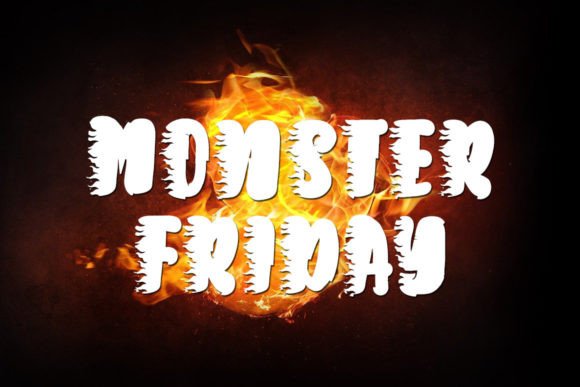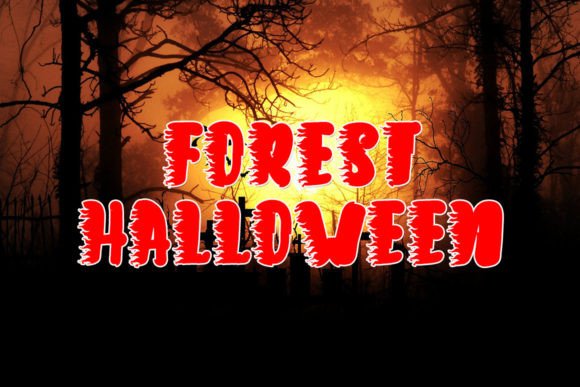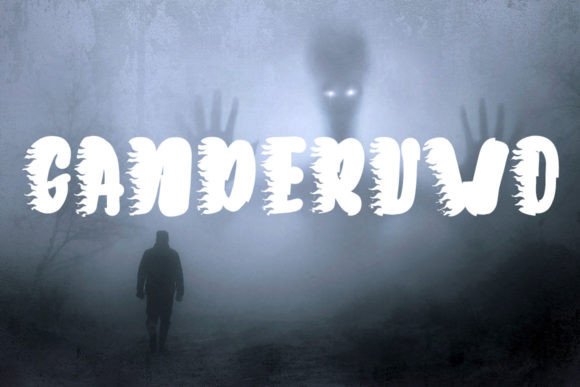
The Ultimate Display Font: Unleashing the Power of Fire Speed
I’ll never forget the moment I stumbled upon the perfect font for a client’s branding project. It was as if the stars aligned, and my design woes disappeared into thin air. That’s exactly what happened when I discovered the Fire Speed font. In this article, I’ll share my journey with this incredible display font, its features, and how to make the most of it in your designs.
A Design Moment of Frustration and Triumph
I was working on a project for a trendy boutique hotel, and the client requested a bold, eye-catching font to capture the essence of their brand. I scoured the internet, tried countless fonts, but nothing seemed quite right. That was until I stumbled upon Fire Speed. Its unique design and versatility immediately caught my attention. I knew I had found the perfect fit.
An Honest Review of Fire Speed
Here’s what I love about Fire Speed:
- ✨ Unique and bold design that grabs attention
- ✅ Highly versatile and adaptable to various design projects
- 🔥 Excellent for headlines, titles, and display text
- 👍 Well-suited for branding, advertising, and marketing materials
While Fire Speed is an exceptional font, there are a few minor quirks to consider:
- 🤔 May not be suitable for body text or small font sizes due to its bold nature
- ⚠️ Some characters may not work well in certain contexts, such as in combination with other bold fonts
The Backstory of Fire Speed
Fire Speed was designed by a renowned typographer who aimed to create a font that would evoke speed, energy, and dynamism. The designer’s inspiration came from the world of sports, technology, and high-performance vehicles. The result is a font that exudes confidence, power, and style.
| Font Name | Fire Speed Font |
| Author | Mr.Soon Design |
| What is Fire Speed best used for? | Fire Speed is ideal for headlines, titles, and display text in branding, advertising, and marketing materials. |
| Is Fire Speed suitable for body text? | No, Fire Speed is a bold font and may not be suitable for body text or small font sizes. |
| Does Fire Speed support OpenType features? | Yes, Fire Speed supports OpenType features, such as stylistic alternates and glyphs. |
In conclusion, Fire Speed is an exceptional display font that can elevate your designs to new heights. Its unique design, versatility, and OpenType features make it an excellent choice for branding, advertising, and marketing materials. With its bold and dynamic personality, Fire Speed is sure to leave a lasting impression on your audience.